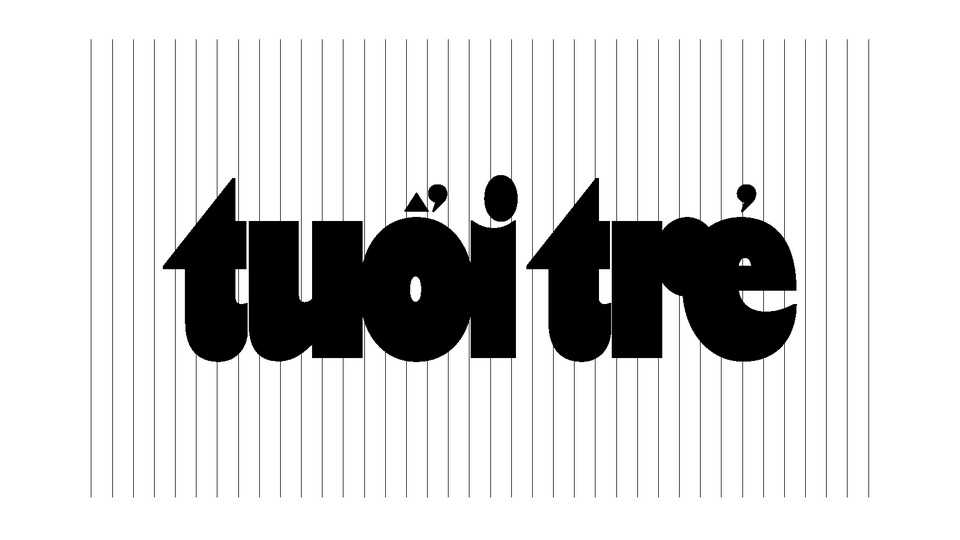
Download Tuoi Tre font, a display typeface recreated from the font of Vietnamese newspaper, closed from July to October 2018, part of the Fonts for Freedom project.